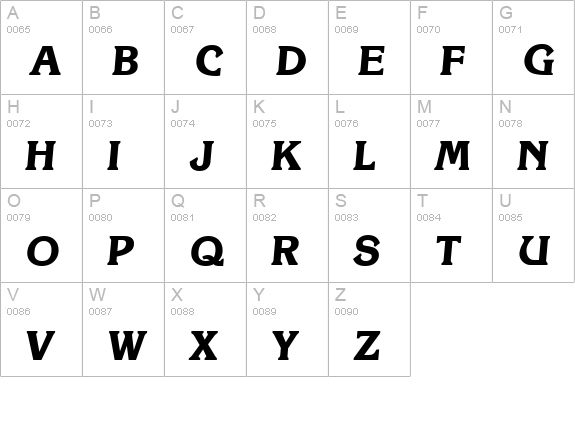
KorinthSerial-Xbold-Italic is a distinctive, italic variant in the KorinthSerial typeface family \xE2\x80\x94 well suited to design and typography projects.
KorinthSerial-Xbold-Italic is a stunning and versatile font that exudes elegance and sophistication. Its bold and italic design adds a touch of drama and flair to any project, making it perfect for headlines, logos, and branding materials. The sleek and modern look of KorinthSerial-Xbold-Italic makes it a standout choice for both digital and print designs. What makes KorinthSerial-Xbold-Italic even more appealing is that it is available for free download at FontsMarket.com. This means you can easily access this high-quality font without any cost, making it a valuable addition to your font collection. Whether you're a professional designer or a hobbyist looking to elevate your projects, KorinthSerial-Xbold-Italic is a fantastic choice that won't break the bank. Download it today and add a touch of sophistication to your designs!